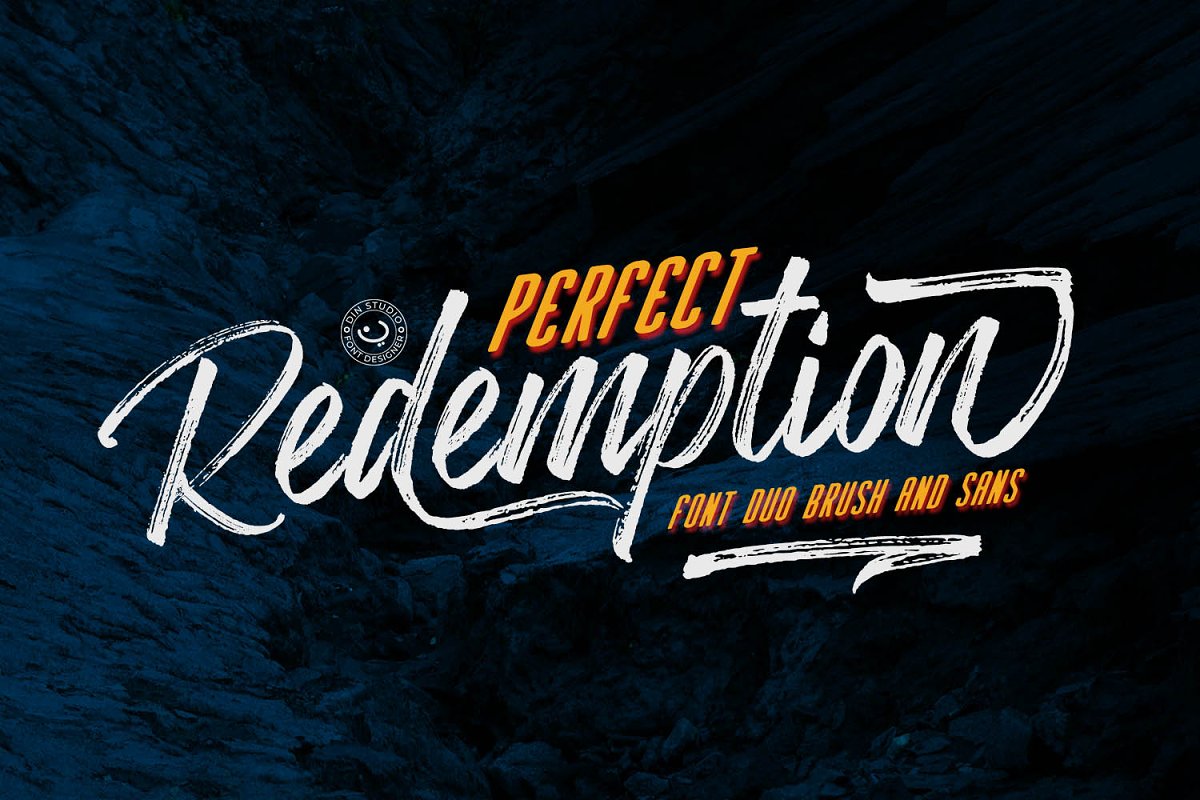
Introducing Perfect Redemption Font Duo. Perfect Redemption is a brush font and combines with sans font. Made with a natural brush.
The texture from the brush font will make your design more beautiful and powerful. This font is suitable for any design like branding, quotes, t-shirt printing and etc.
- Accents (Multilingual Characters)
- 64 Alternates
- 50 Extra Swashes
- Numerals and Punctuations (OpenType Standard)